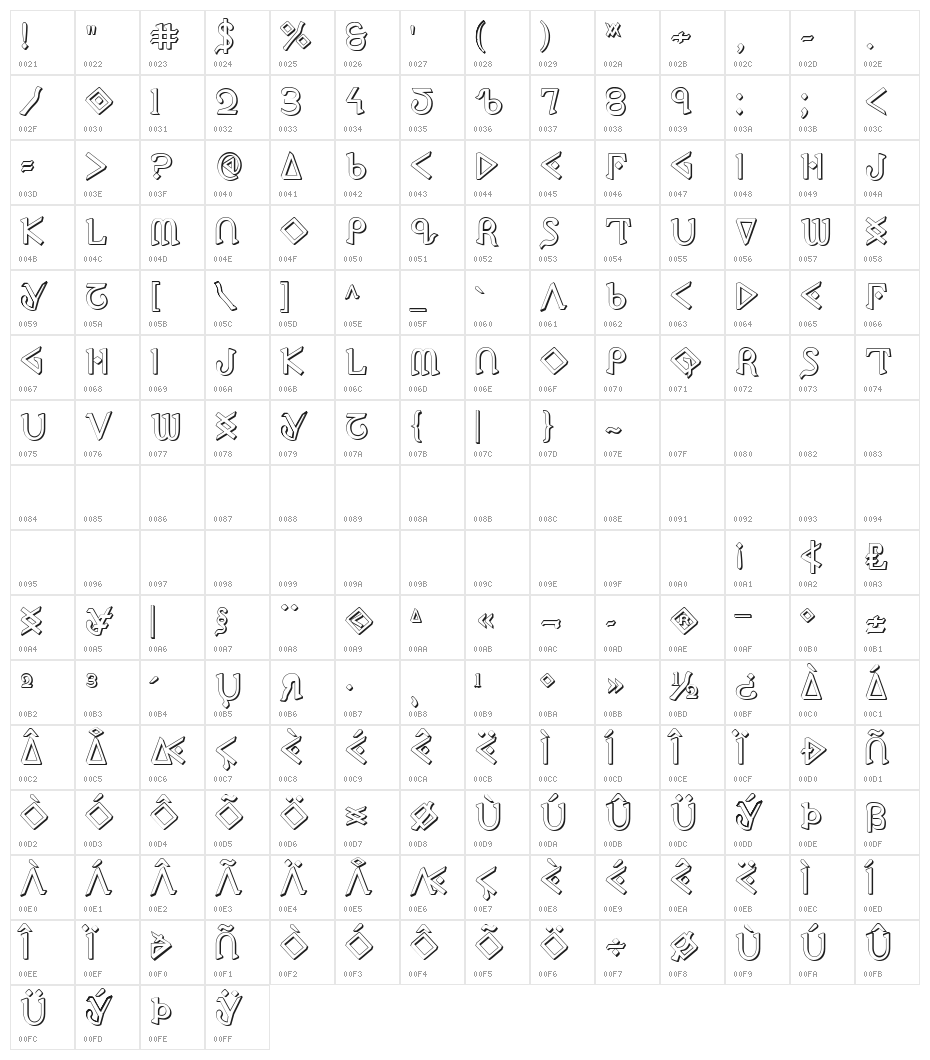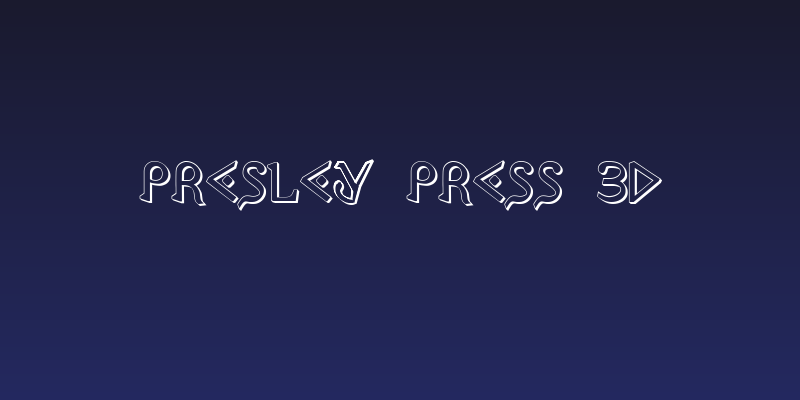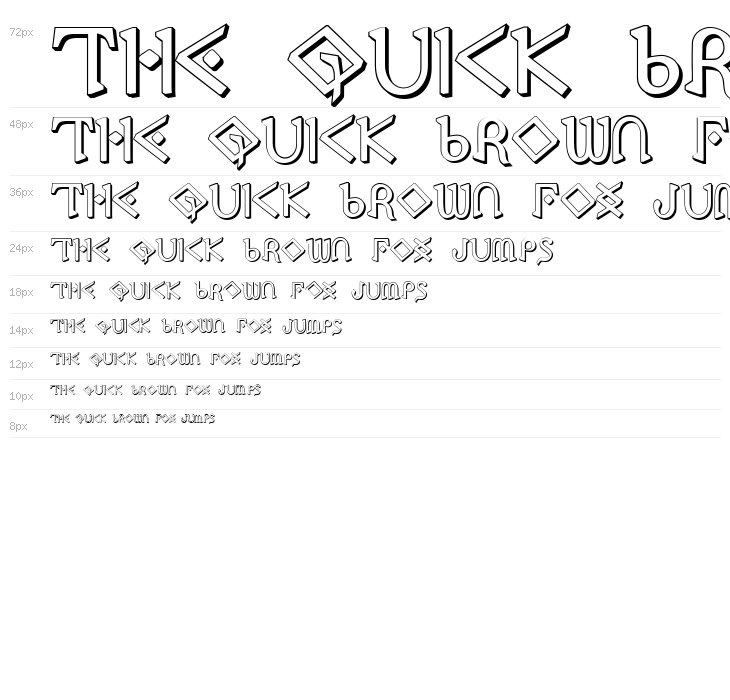
Presley Press 3D Font
Presley Press 3D Description
This font features a bold, geometric 3D style with a distinct outline that gives each character a shadowed effect. The uppercase and lowercase letters share a consistent design, with angular and sharp edges that create a modern and futuristic appearance. The numbers and special characters maintain this aesthetic, ensuring uniformity across all elements. The font's unique structure makes it stand out, with each character having a strong presence due to the three-dimensional illusion created by the shadowing. This design is particularly eye-catching and can add a dynamic element to any project.
| Proposed Projects | Ideal for posters, video game graphics, sci-fi themed projects, and branding that requires a modern and dynamic look. |